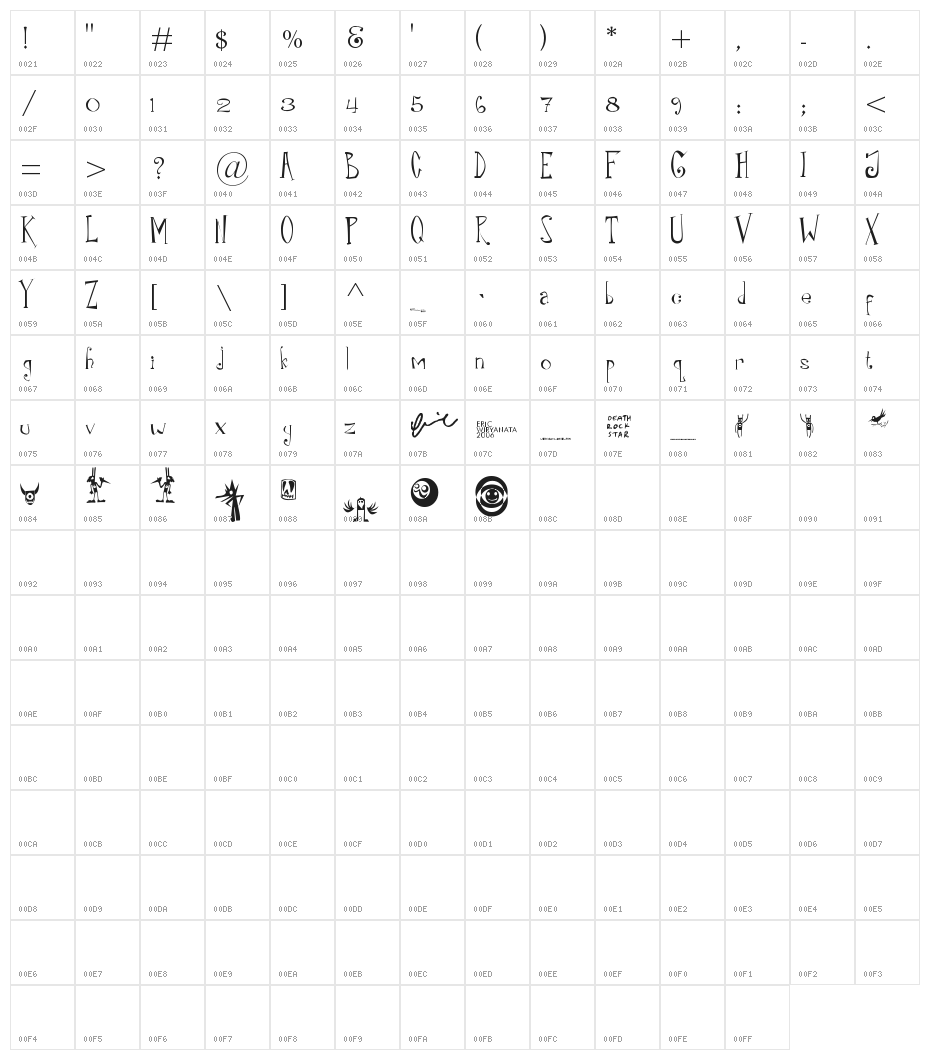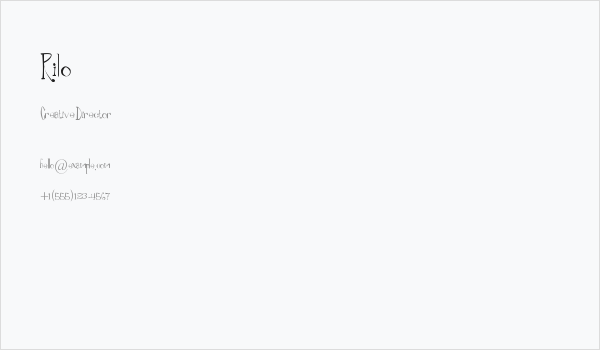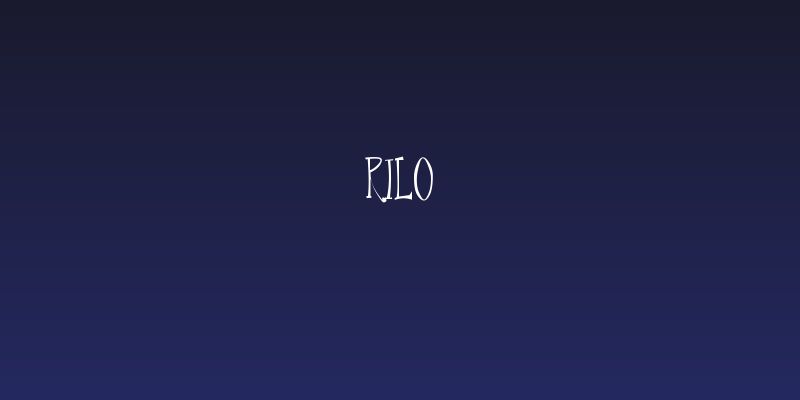
Rilo Font
Rilo Description
This font exhibits a whimsical and playful style, characterized by its tall, narrow letterforms and exaggerated serifs. The uppercase letters feature unique, artistic elements, such as spirals and elongated strokes, giving them a distinct, decorative appearance. The lowercase letters maintain a similar playful aesthetic, with varying stroke widths and quirky details. The numbers and special characters are consistent with the overall style, adding a touch of elegance and flair. This font's artistic nature makes it suitable for creative and expressive design projects.
Proposed ProjectsIdeal for creative projects such as invitations, posters, and branding that require a playful and artistic touch.